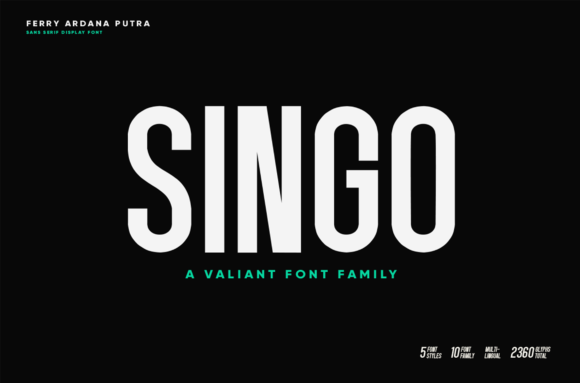
Unleash the Majesty of Singo: A Font of Strength, Elegance, and Timeless Appeal
In the vast realm of digital artistry, where creativity knows no bounds, there exists a font family that embodies the very essence of power, grace, and enduring allure: Introducing Singo, the valiant sans serif font crafted by the ingenious minds at Ardana Creative. Inspired by the majesty of the lion, revered in Indonesian culture as a symbol of strength and gallantry, Singo emerges as a typographic masterpiece that will elevate your designs to new heights of sophistication and impact.
With its striking balance of sharp lines and graceful curves, Singo captivates the eye and captivates the imagination. Its carefully crafted characters exude an air of timeless elegance, evoking a sense of history and heritage while remaining firmly rooted in the present. Whether you're a seasoned designer seeking to make a statement or a creative enthusiast yearning to add a touch of distinction to your work, Singo stands as your steadfast companion, ready to transform your vision into an unforgettable reality.
Immerse yourself in the versatility of Singo, a font that seamlessly adapts to a myriad of design applications. Its inherent strength and boldness make it the perfect choice for branding and logo creation, where it commands attention and leaves an indelible mark on the minds of your audience. Unleash your creativity in the world of print, where Singo's presence enhances magazines, posters, and other printed materials with a touch of sophistication. From the silver screen to the digital realm, Singo shines as a captivating font for films and websites alike, captivating viewers with its timeless charm and undeniable charisma.
Singo is more than just a collection of letters; it's an embodiment of creativity, a testament to the power of design. Its very essence is designed to ignite your imagination and empower you to craft designs that transcend the ordinary. Embrace the majesty of Singo today and embark on a journey of artistic expression where boundaries are shattered, and greatness is achieved.